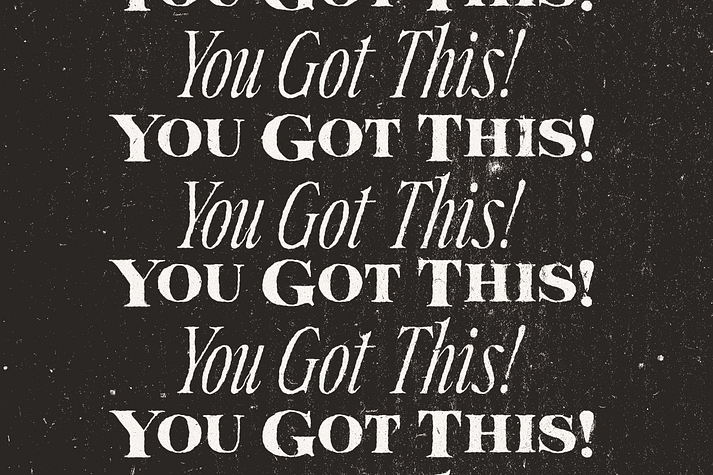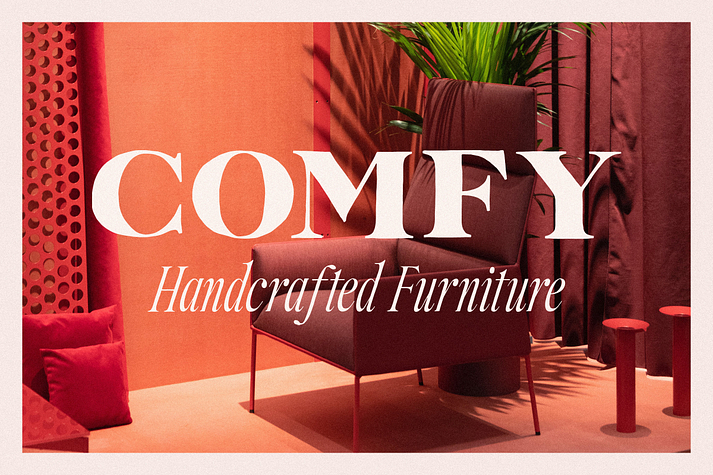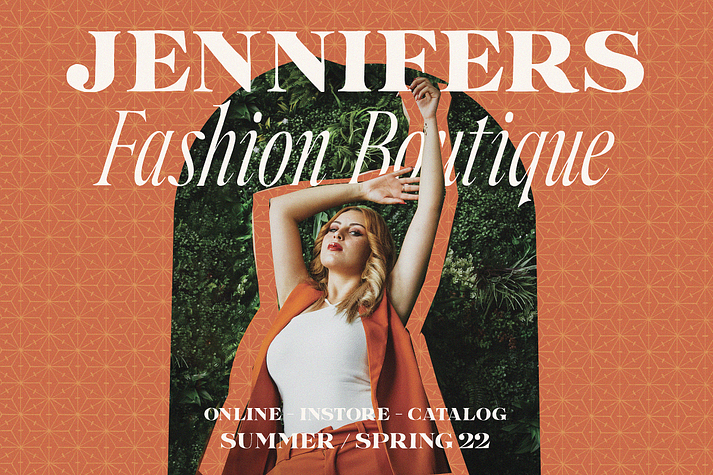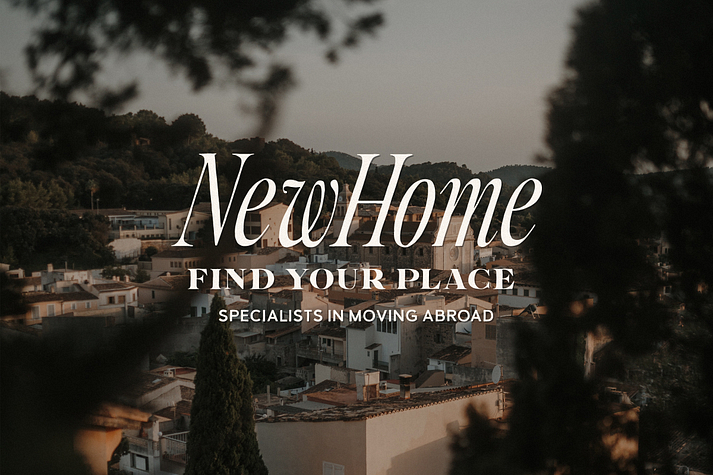
Beyond Comfort
Beyond Comfort is a display serif font family. This typeface has two styles and was published by Tom Chalky.
Introducing Beyond Comfort A stylish and classy font duo inspired by vintage editorial fonts you’ll come across in magazines and adverts. A somewhat unusual pairing that works beautifully together! Both can take center stage, with entirely different approaches, changing the tone of your work immediately.
• Beyond Comfort Serif: A confident, bold, and retro serif that can rock a headline. With Latin 1 multilingual glyph support and true small caps.
• Beyond Comfort Italic: A classy, sleek, and elegant italic font suitable for many design tasks. Also, with Latin 1 multilingual glyph support.